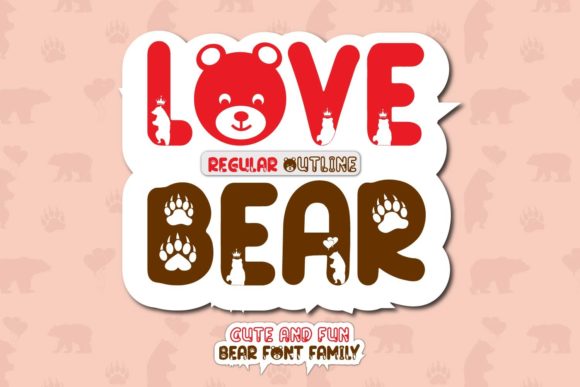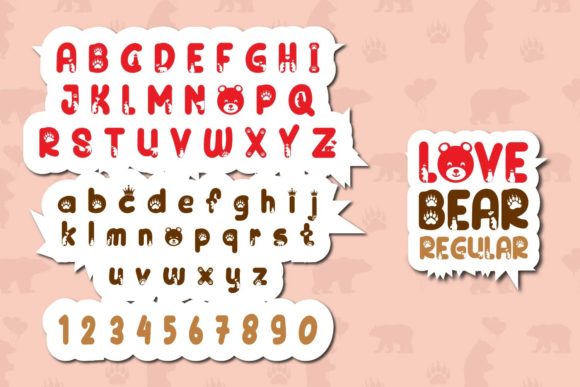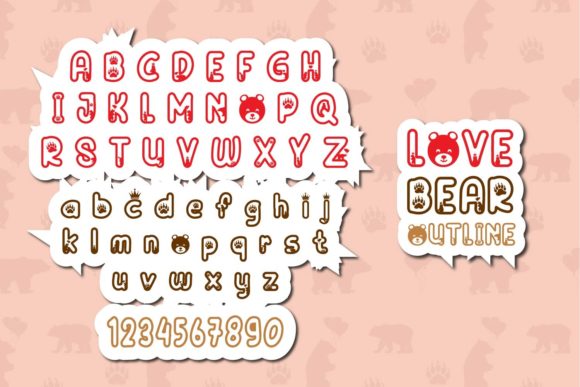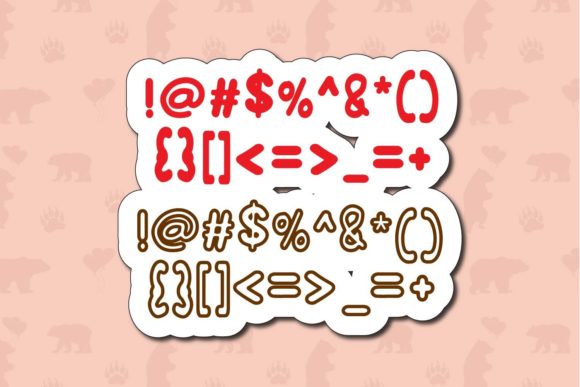
Love Bear Font
About the Love Bear Font
Meet Love Bear Font, a stunning font that brings a touch of elegance and professionalism to any design. Love Bear is a cute and adorable decorative font. It embodies fun and authenticity and is a perfect choice for kids activities, crafts or t-shirt designs.
Love Bear’s playful design excels in projects requiring a friendly, approachable aesthetic. It’s ideal for children’s books, branding for toy companies, or packaging for sweet treats. However, its decorative nature makes it unsuitable for large blocks of text or UI elements where readability is paramount. Avoid using it for body copy or website content.
The font’s overall personality is undeniably cheerful and childlike; its rounded forms and slightly irregular characters contribute to its endearing quality. This makes it best suited for brands that value approachability and fun.